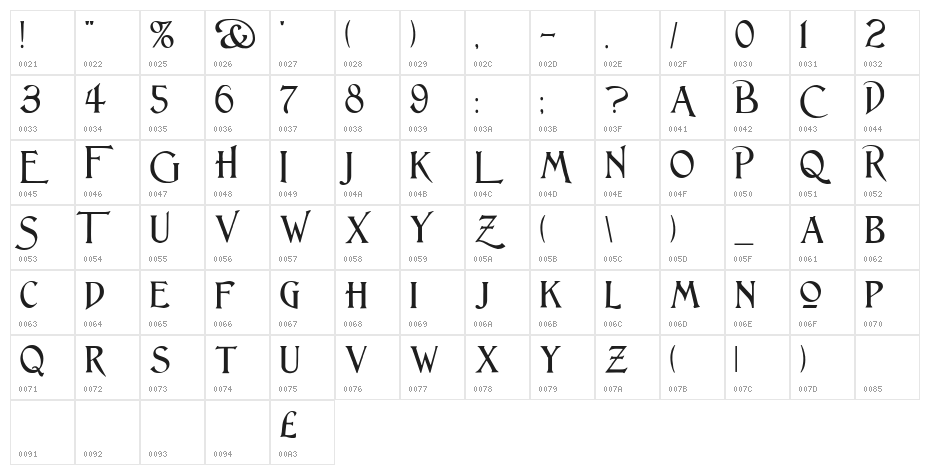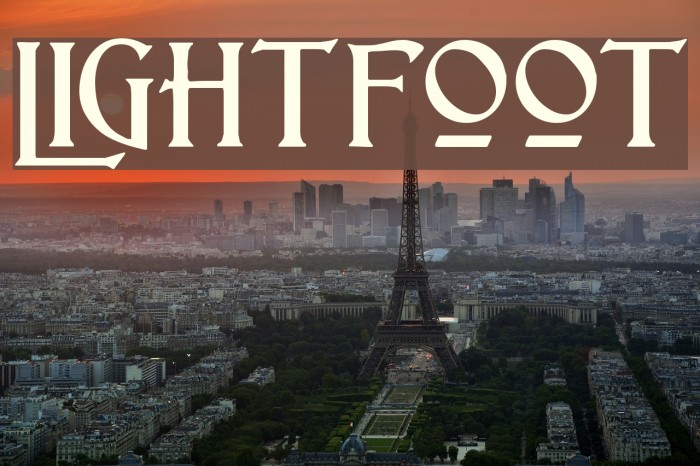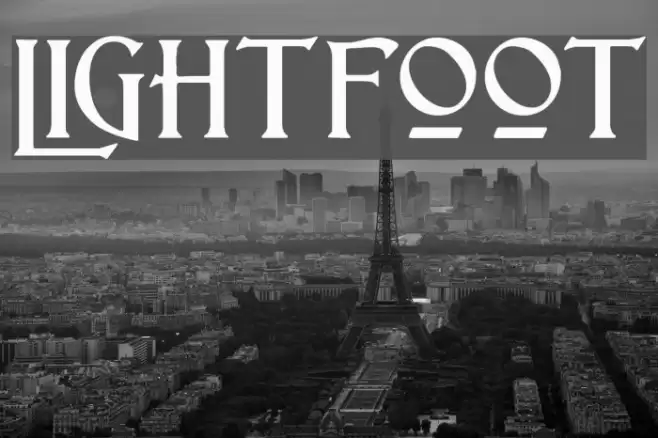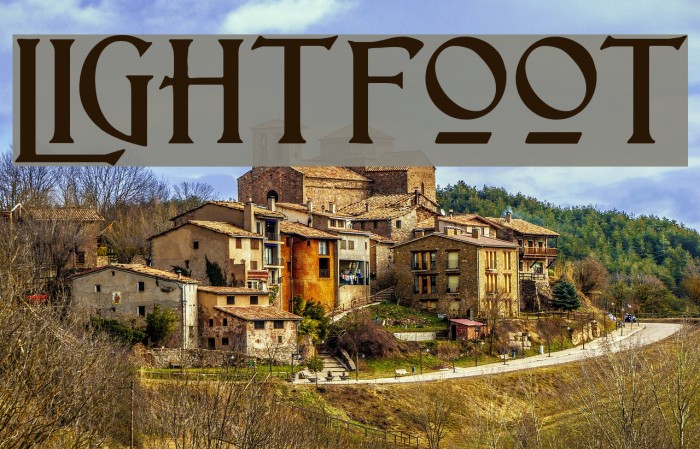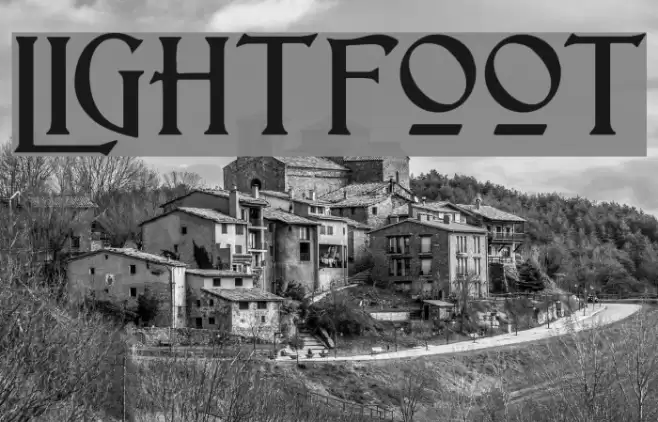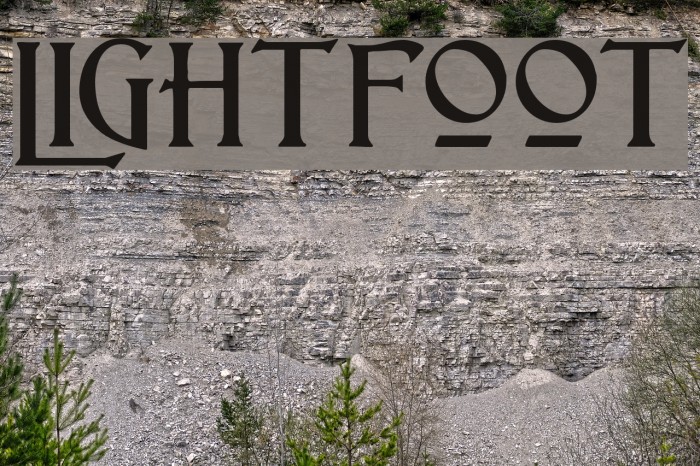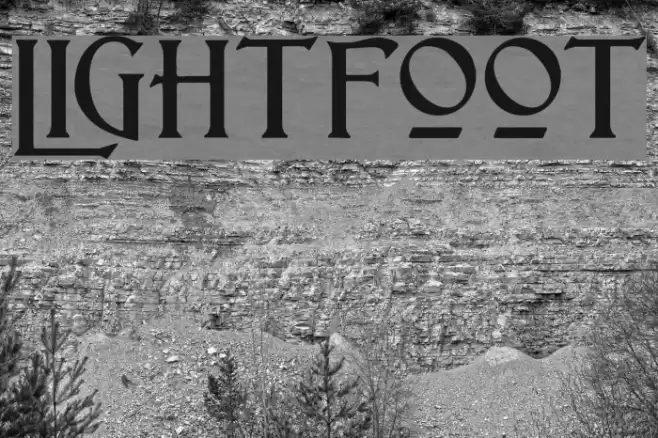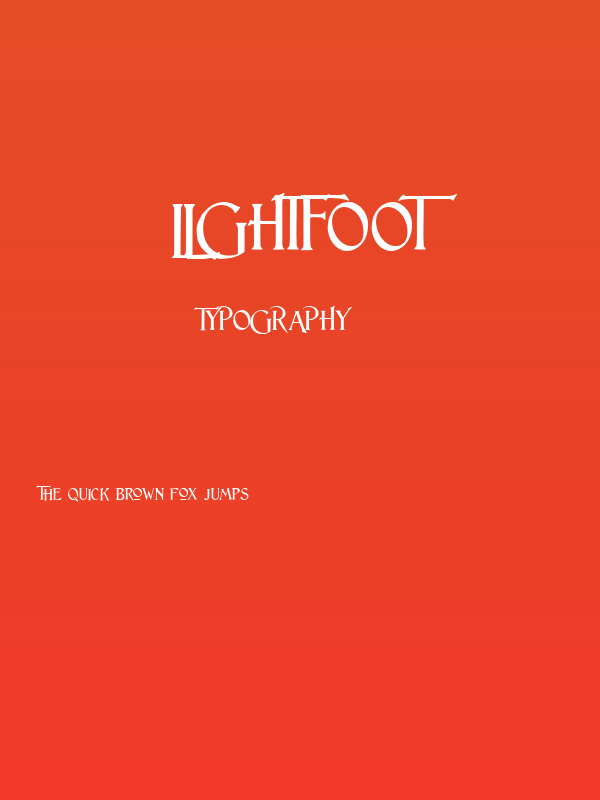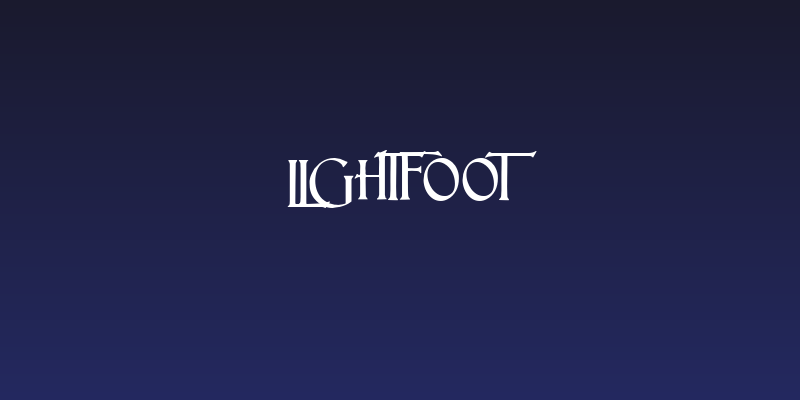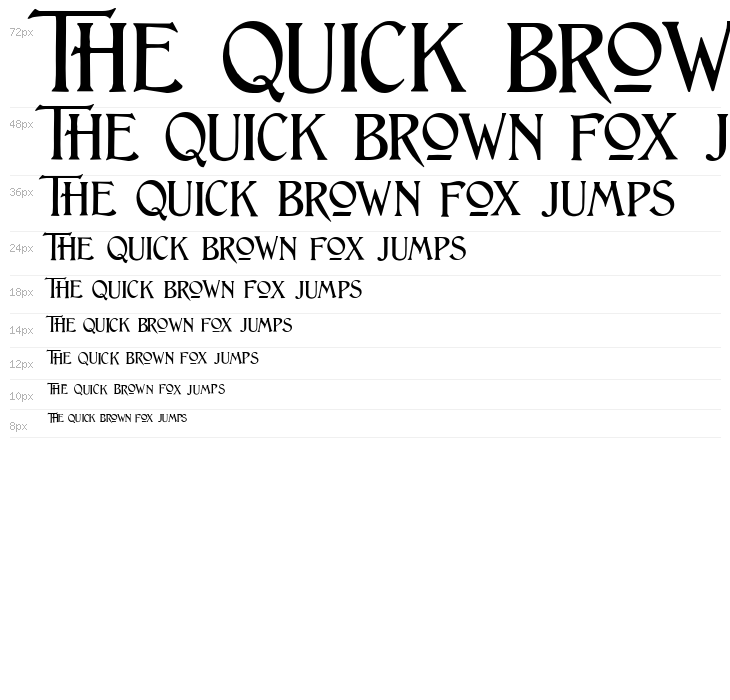
Lightfoot Font
Lightfoot Description
This font features a unique and artistic design with a blend of sharp and smooth curves, giving it a dynamic and elegant appearance. The uppercase letters are characterized by their elongated and slightly exaggerated serifs, which add a touch of sophistication and flair. The lowercase letters maintain a consistent style, with a harmonious balance between thick and thin strokes, creating a sense of movement and fluidity. The numerals are bold and distinctive, with a playful yet refined aesthetic. Special characters are thoughtfully designed to complement the overall style, making this font versatile for various creative applications.
| Overall Style | Artistic and Elegant |
| Proposed Projects | Ideal for branding, posters, book covers, and artistic projects that require a touch of elegance and creativity. |